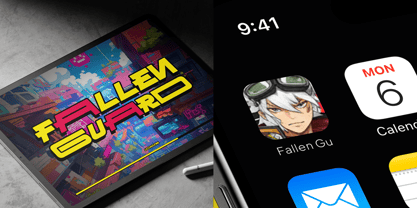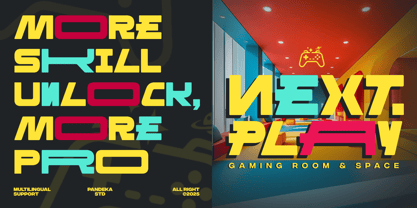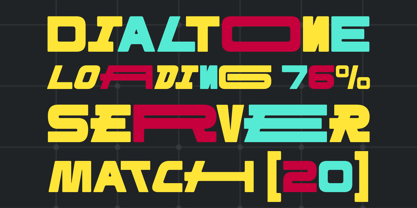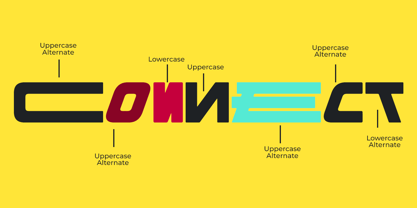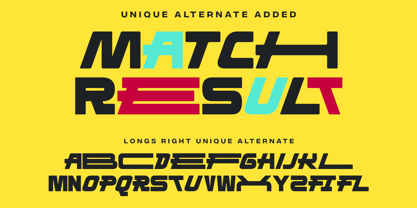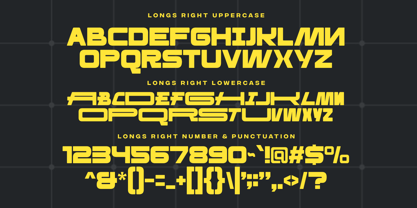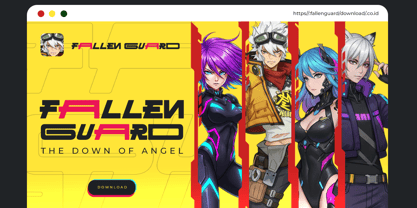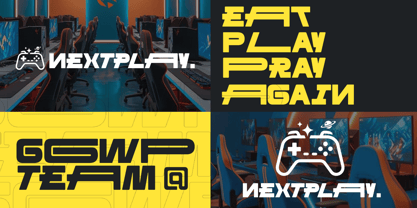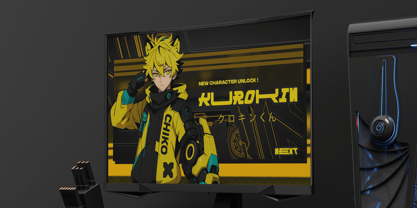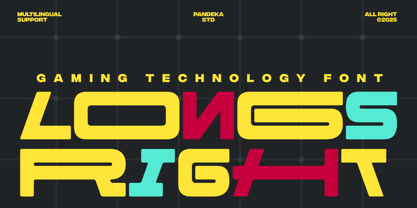
Longs Right
The Longs Right Font Family was designed by Sagara Nararya and published by Pandeka Studio. Longs Right contains 1 styles. More about this family
Longs Right is a futuristic and dynamic display font designed for gaming, esports, and tech-inspired visuals. Its bold geometric structure and sharp angles create a powerful, high-energy aesthetic — perfect for titles, UI layouts, streaming visuals, and competitive team branding. The combination of aggressive letterforms and vibrant styling makes it ideal for projects that demand confidence and motion.
This font comes in one style: Regular, and includes 21+ unique alternates to give extra flexibility and personality to your designs. With uppercase, lowercase, numerals, punctuation, and multilingual support, Longs Right delivers the perfect mix of technology, energy, and modern gaming vibes.
• 1 Style: Regular
• Full Character Set: Uppercase, lowercase, numbers, symbols, and punctuation
• 21+ Alternate